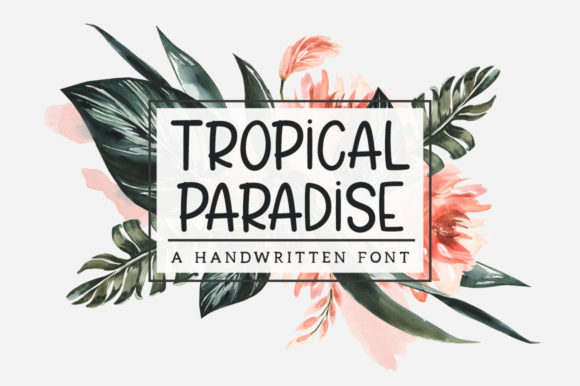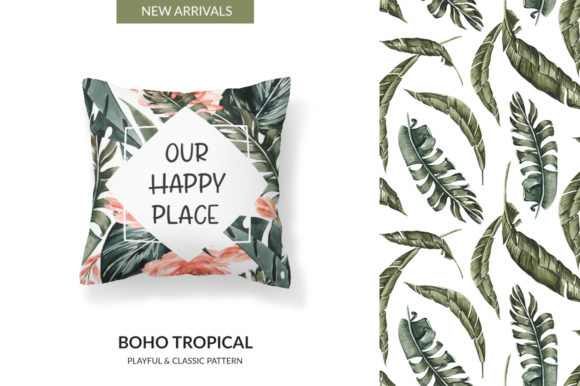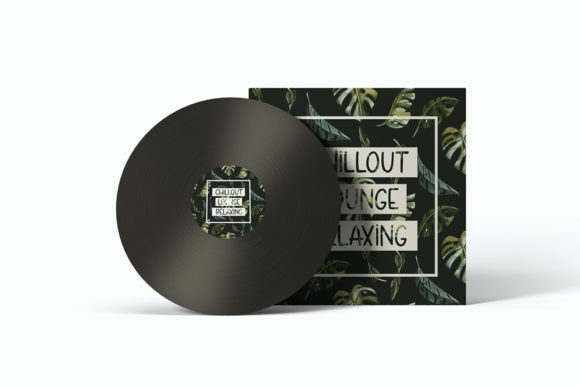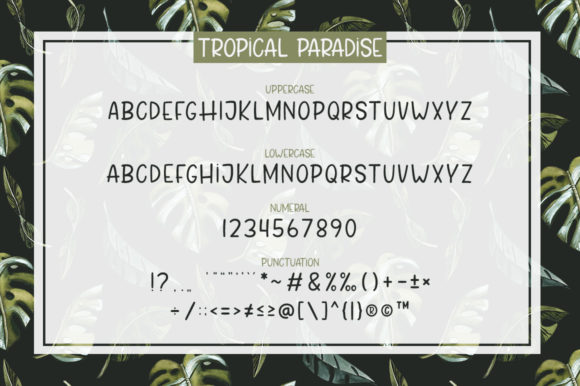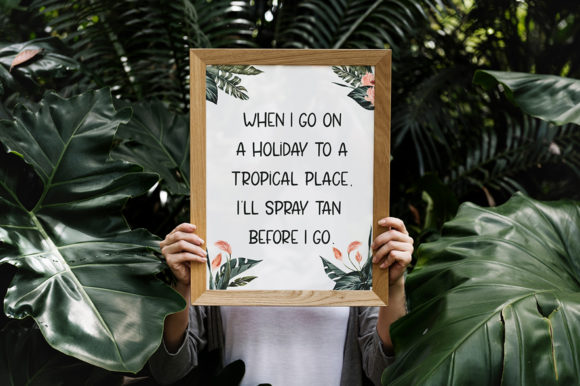
Tropical Paradise Font
Tropical Paradise is inspired by classic typography and brings its own unique style to any design project. This fantastic handwritten font is best suited for headlines of all sizes, as well as for blocks of text that have both maximum and minimum variations. Whether it’s for web, print, moving images or anything else – Tropical Paradise will look spectacular.